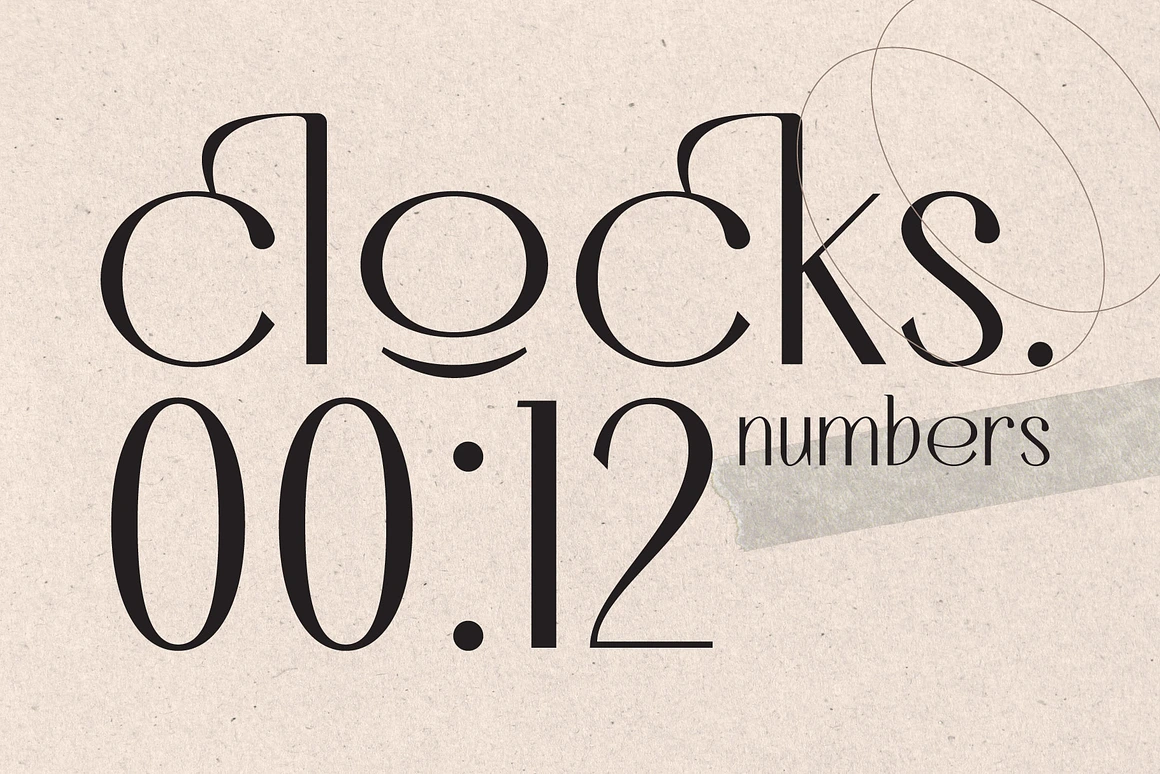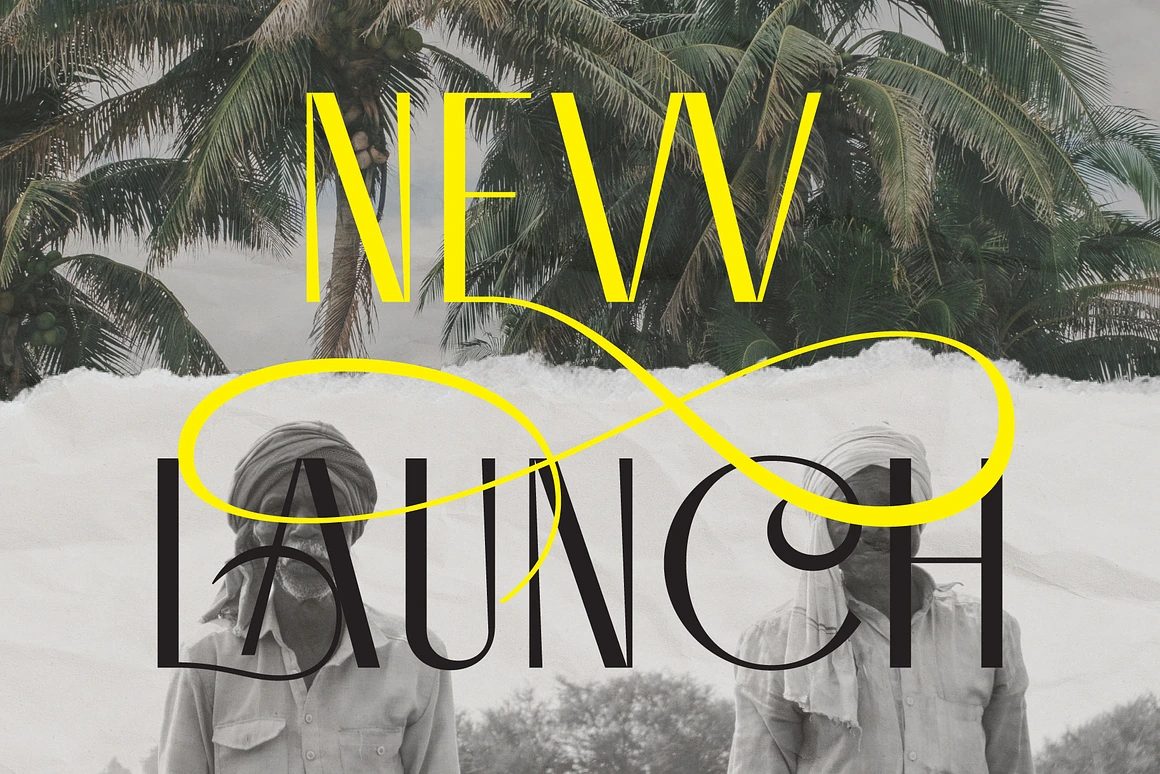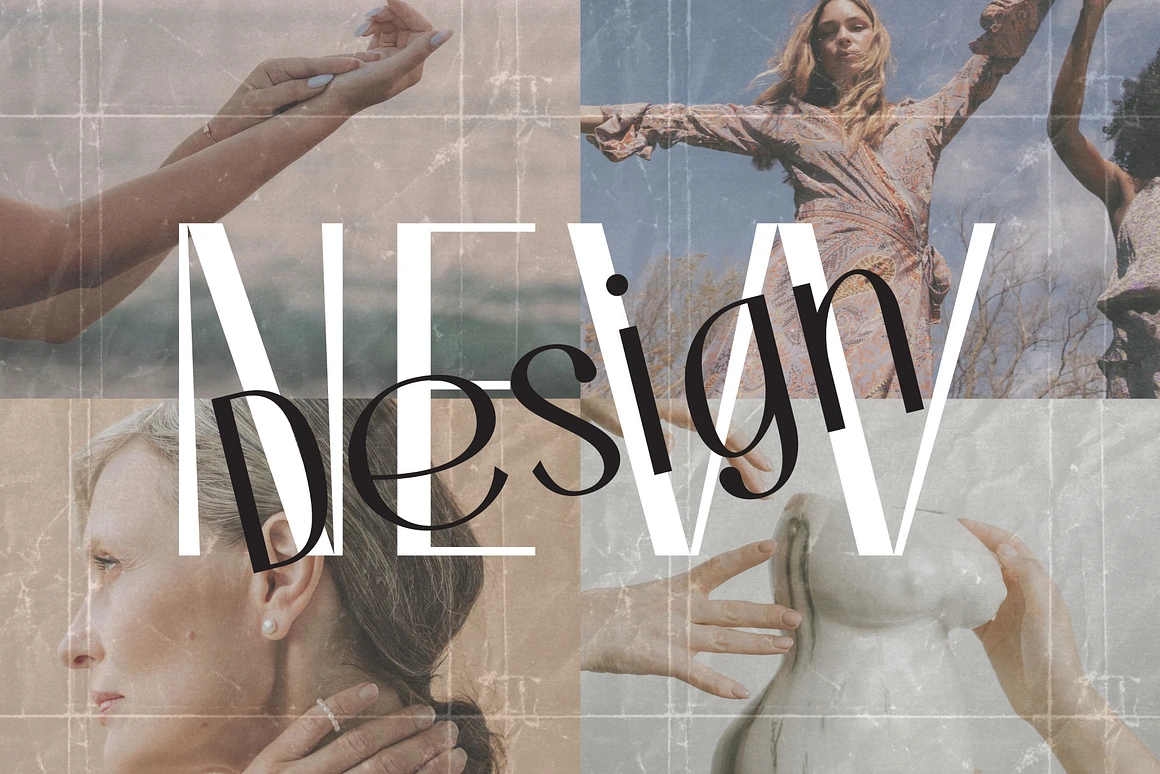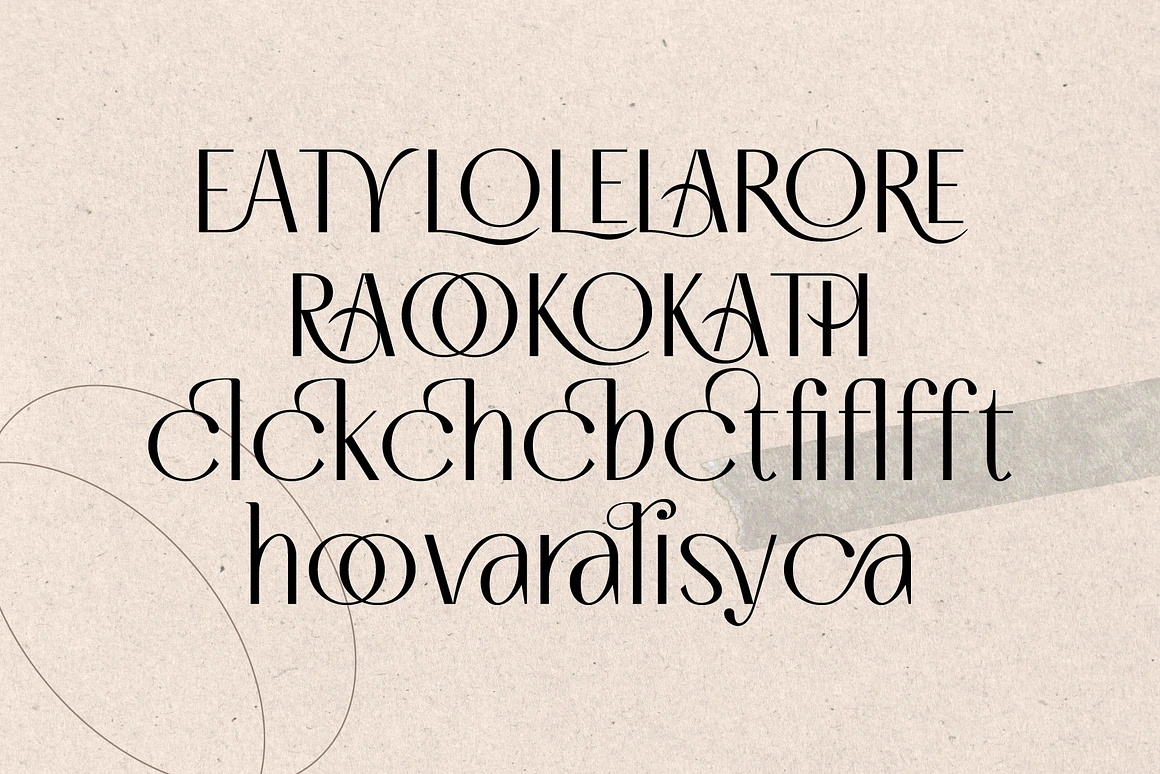
Loream Arivale Experience Elegance
Loream Arivale
Loream Arivale Experience Elegance in Every Letter. Invites you to discover elegance within every letter.
This contemporary sans serif font embodies both simplicity and sophistication, boasting a clean design enriched with advanced elements like stylistic variations, swashes, and ligatures.
These additions offer a plethora of customization options, empowering users to infuse their projects with individuality and flair. Whether it’s for professional documents, creative ventures, or branding initiatives, Loream Arivale’s fusion of subtle refinement and intricate detailing positions it as a standout choice in the realm of typography.
With its search engine-friendly attributes, this font ensures optimal readability and accessibility across various digital platforms. Loream Arivale strikes a harmonious balance between sleek aesthetics and search engine optimization, delivering an experience of elegance woven into every letter.